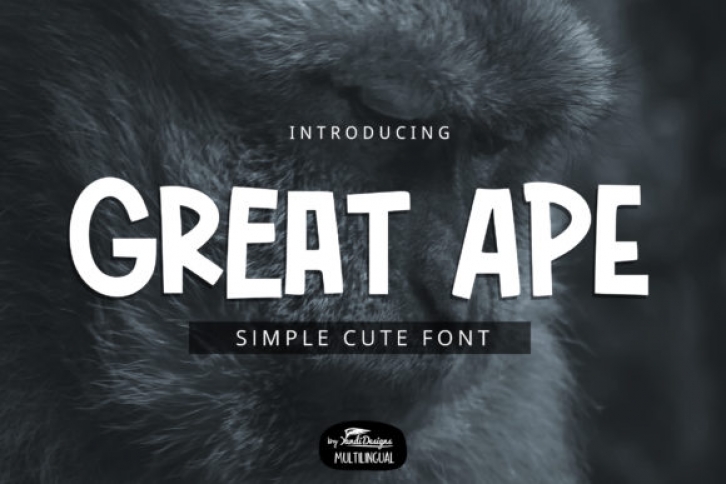
Great Ape is a thick lettered yet quirky display font. Lovely and childish, this font will look absolutely gorgeous on a variety of school projects or informal design ideas.